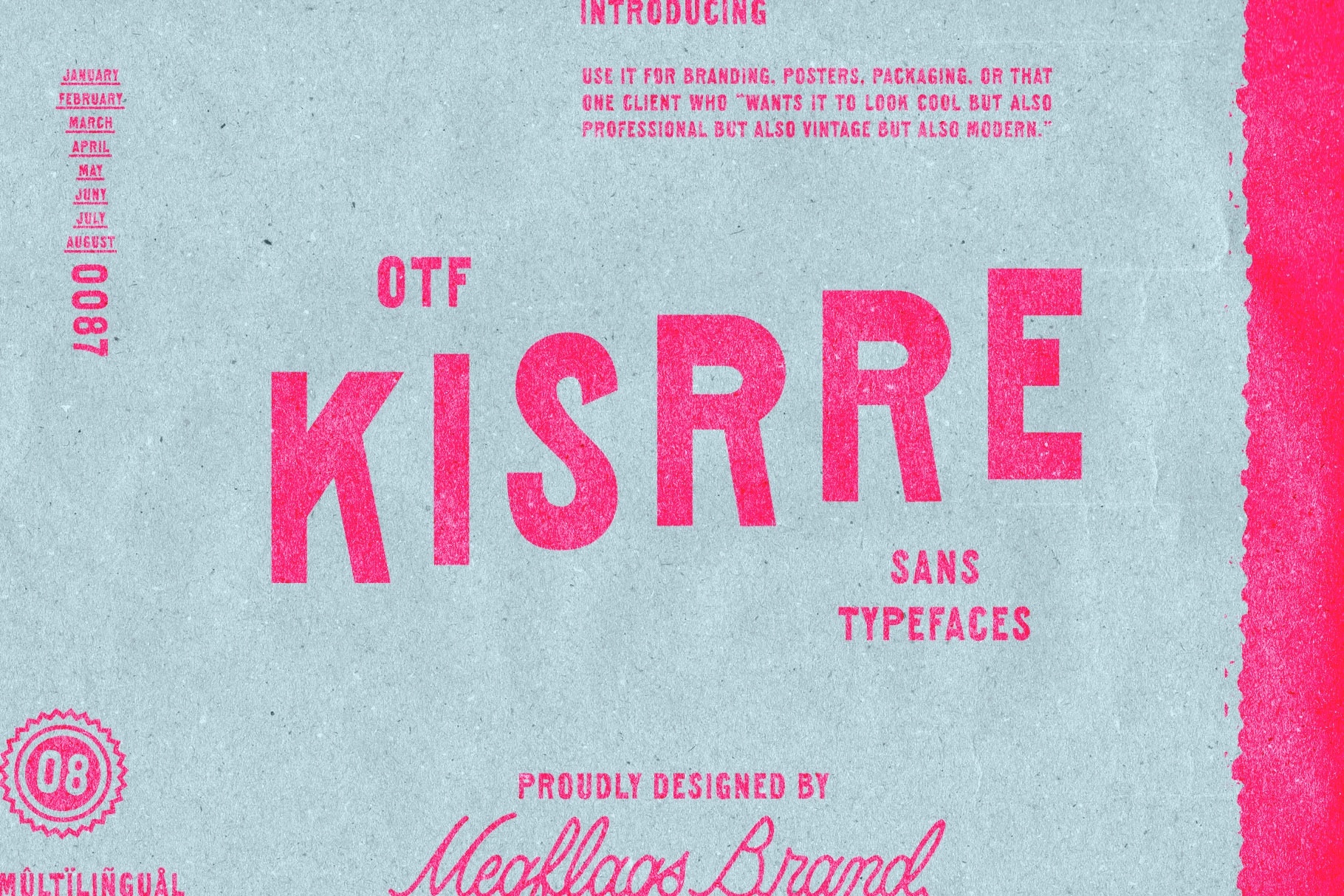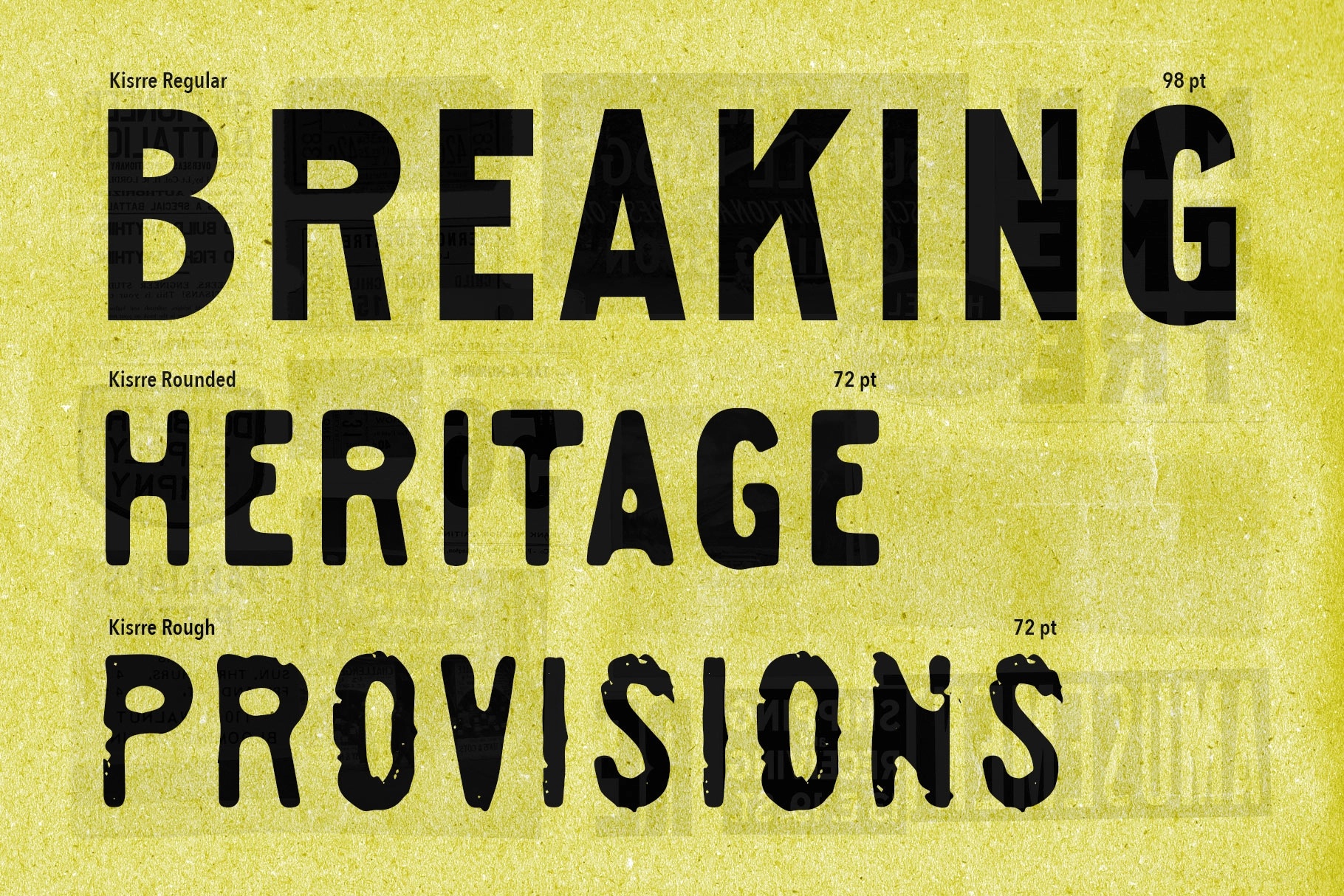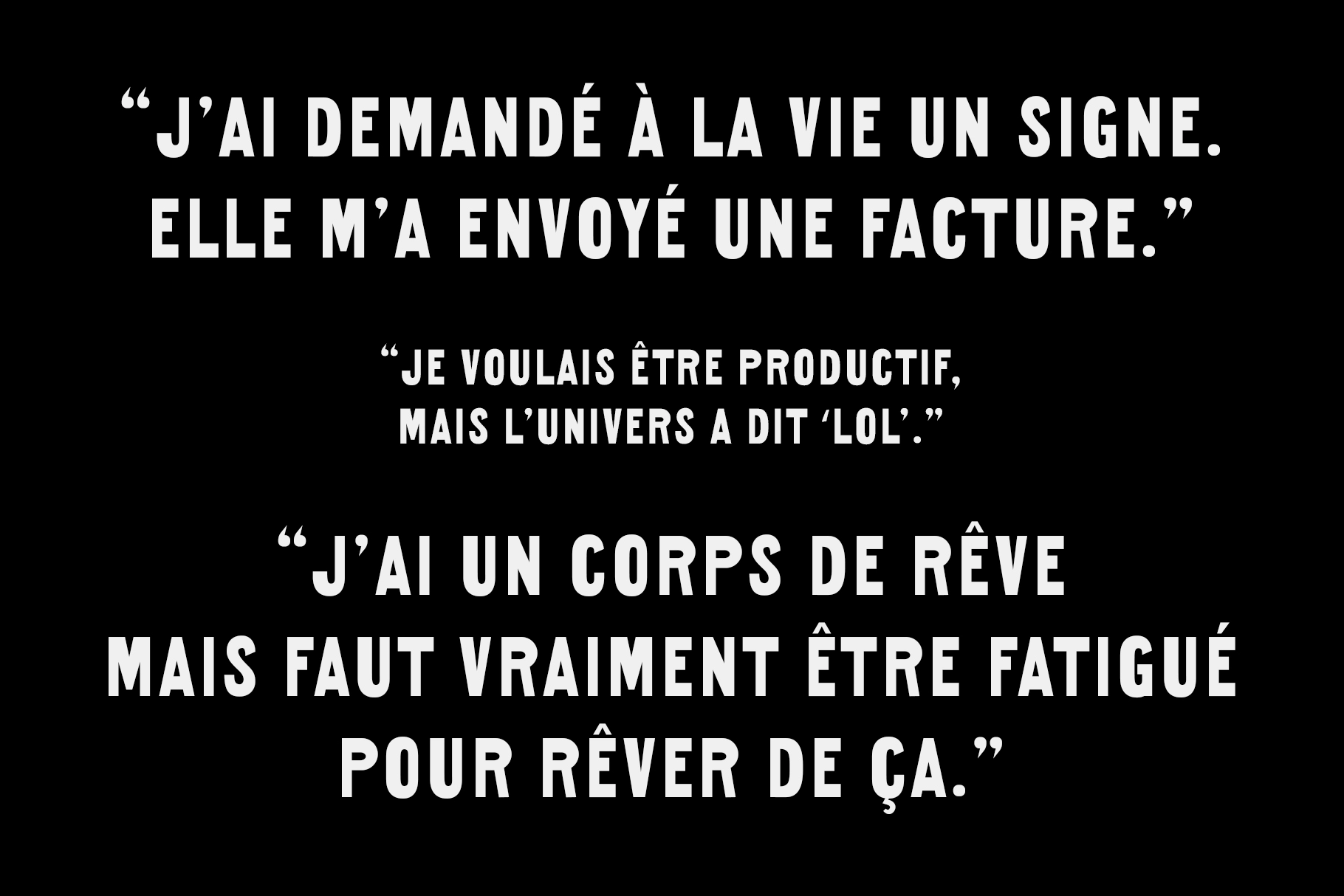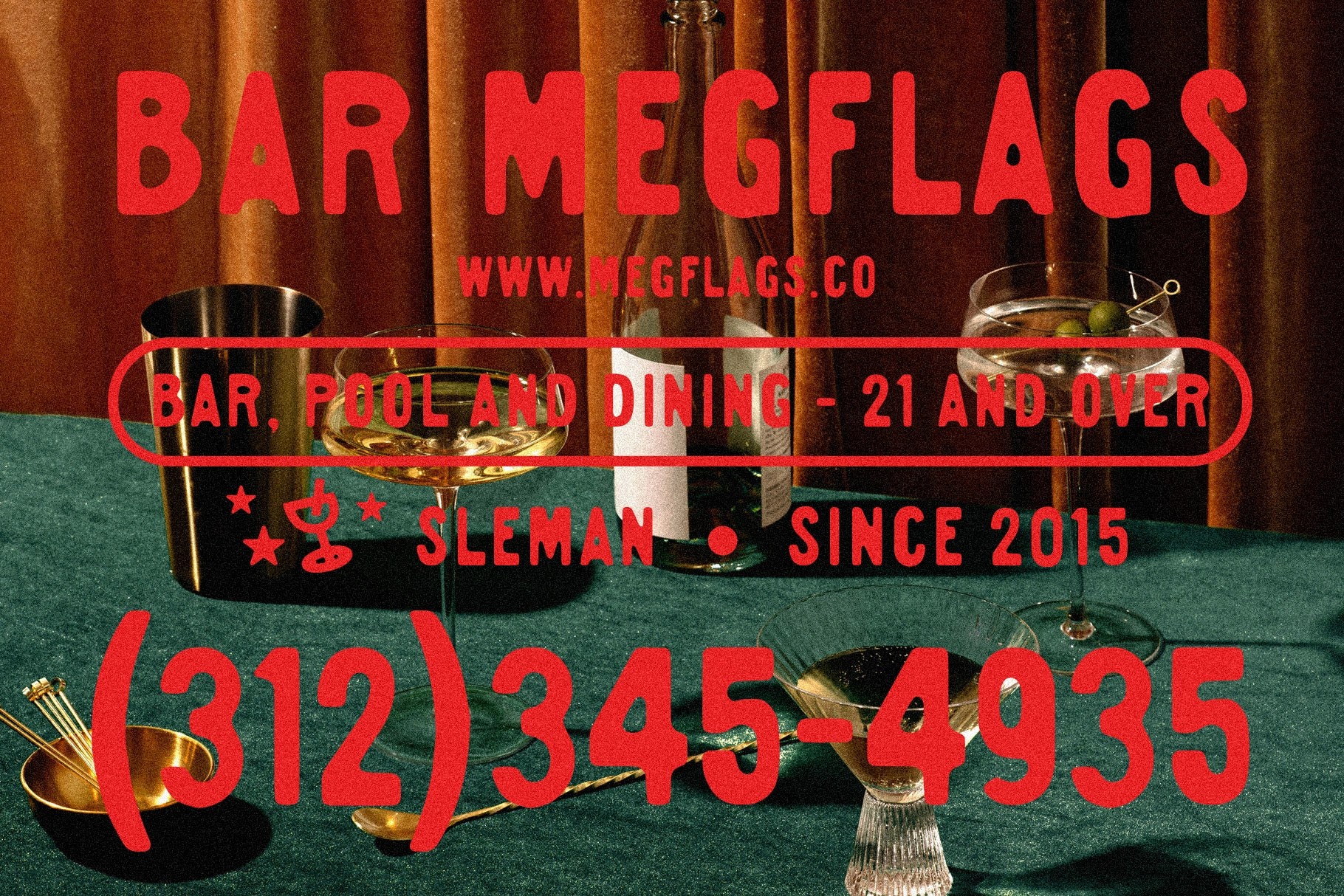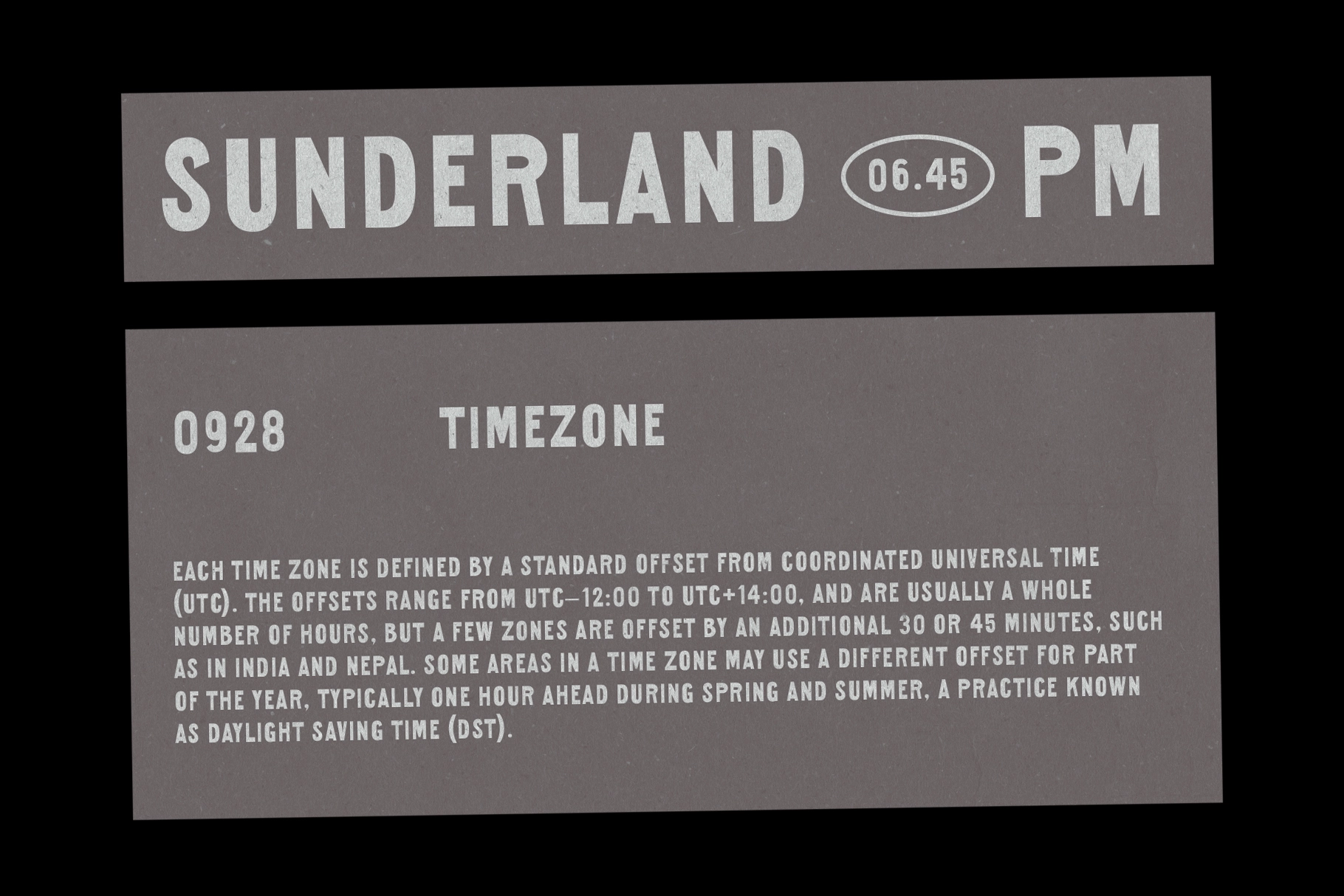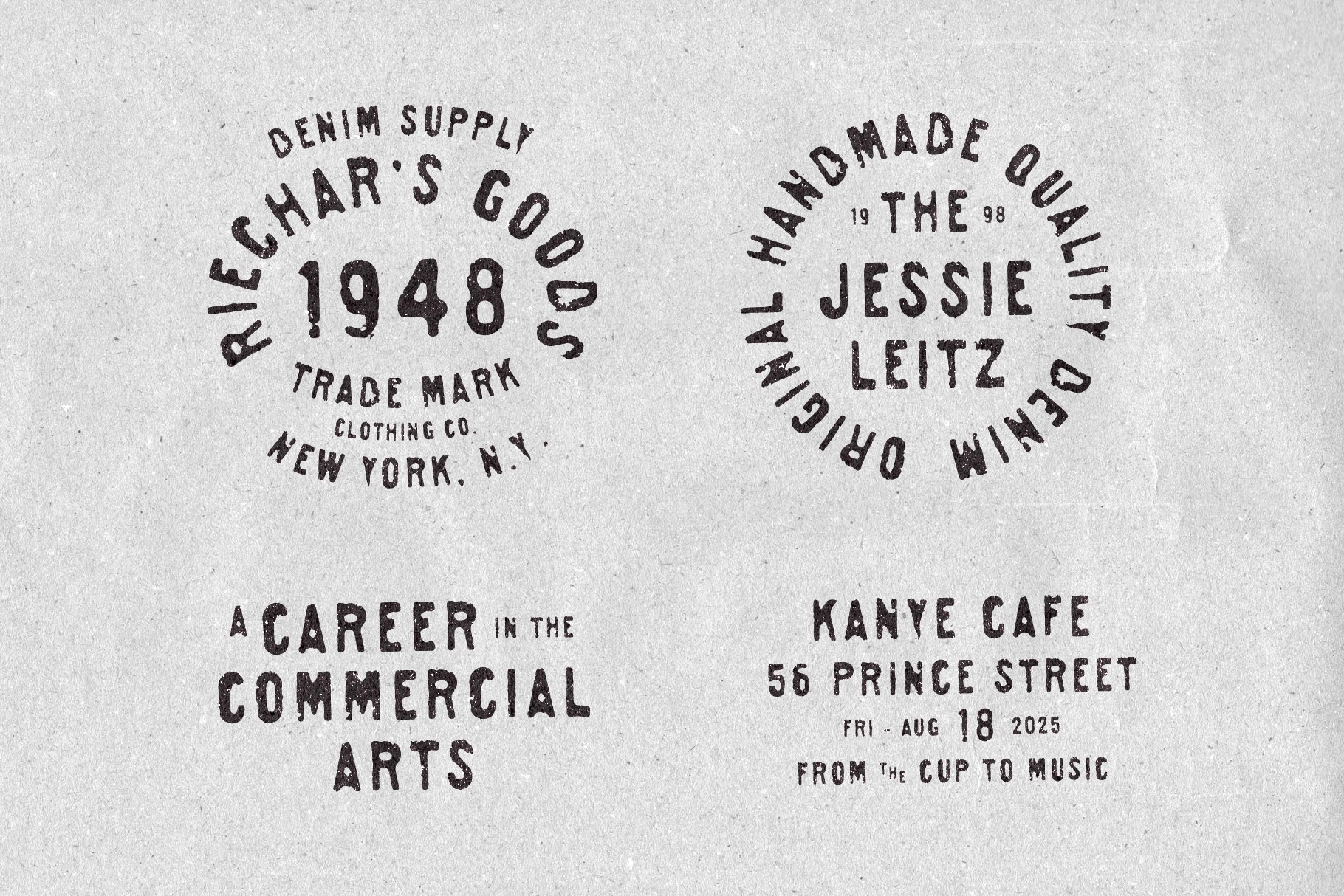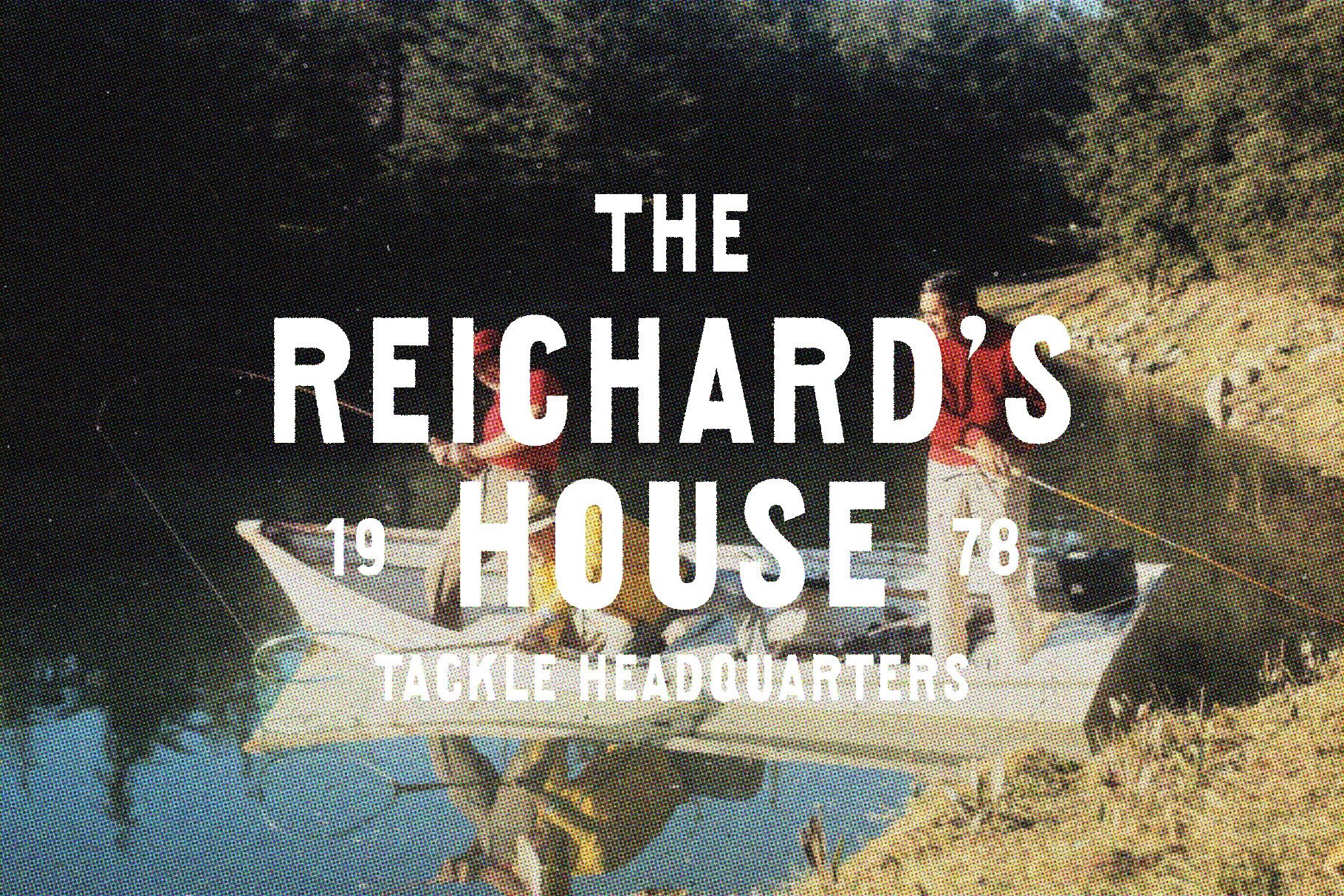
Kisrre
Kisrre-Rough
Kisrre-Rounded
Kisrre is a utilitarian sans with a warm, printed bite drawn on mid-century jobbing type straight from the French 1930 arts-et-métiers culture. Or, just the contrary, theAmerican legacy with diner placards, municipal signage, and utility packaging. Compact proportions, tall x-height, and blunt terminals punch headlines. The straight-sided bowls and tidy spacing keep copy clean.
- Heritage retail — window vinyl, receipt headers, loyalty cards
- Food and beverage — soda crates, coffee bags, hot-sauce labels.
- Music and events — gig posters, festival signage, wristbands.
- Apparel programs — woven labels, neck prints, embroidery specs.
- Sports clubs — badge typography, seat numbers, season tickets.
- Cafés and diners — menu boards, check presenters, placemat type.
- Outdoor goods — knife tins, enamel mugs, hangtags.
- Craft markets — rubber stamps, price chips, table signage.
- Small business kits — business cards, invoices, thank-you slips.
- Social campaigns — launch tiles, promo banners, story frames.
- Wayfinding — utility arrows, door plates, shelf markers.
- Editorial spreads — feature titles, callouts, back-page notes.
- 3 styles — Regular, Rounded, and Rough.
- Uppercase letters, numbers, and punctuation.
- Full multilingual support for Western European languages.